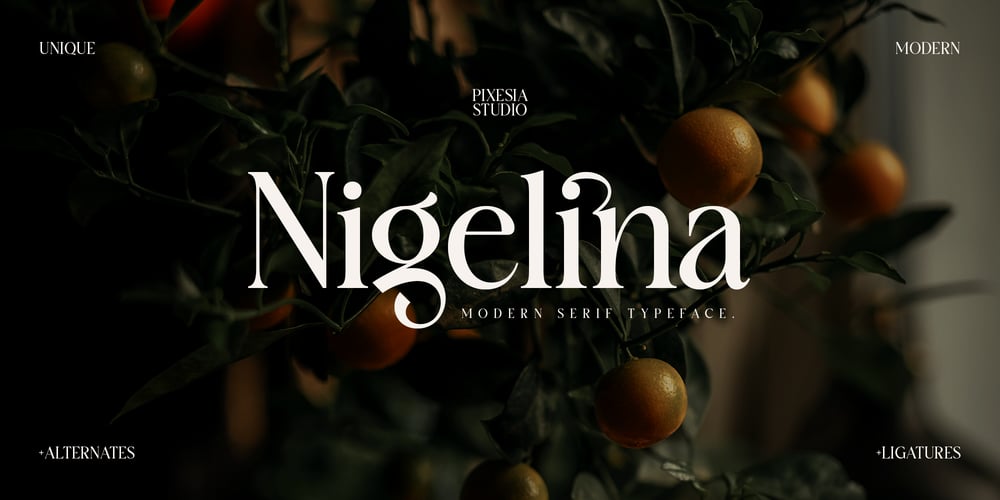
Nigelina Font Family was designed by Abul Almaududi and published by Pixesia Studio. Nigelina contains 1 styles and family package options. Introducing Nigelina – a Modern and Vintage Serif FontNigelina is a modern and vintage serif display font that looks unique, feminine and give a luxurious feel. This modern font has soft swasher and smooth curves that give any project an extra touch class. This typeface would look great embossed on logos & branding, invitations, stationery, wedding designs, social media posts, advertisements, printed quotes, product packaging, product designs, labels, photography, watermarks, special events or even magazine layouts.FEATURES- Stylistic Alternates- Ligatures- PUA Encoded- Uppercase and Lowercase letters- Numbering and Punctuations- Multilingual Support- Works on PC or Mac- Simple Installation- Support Adobe Illustrator, Adobe Photoshop, Adobe InDesign, also works on Microsoft WordHope you Like it.Thanks.